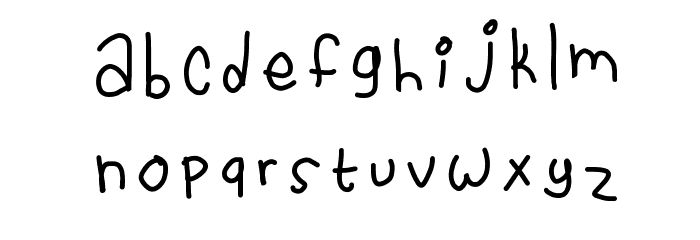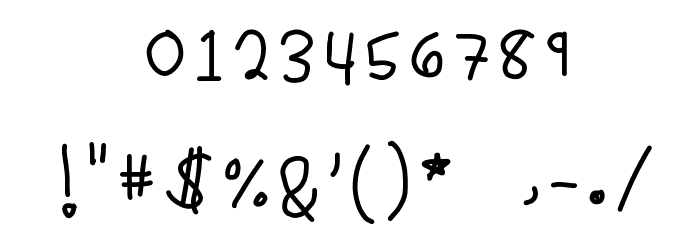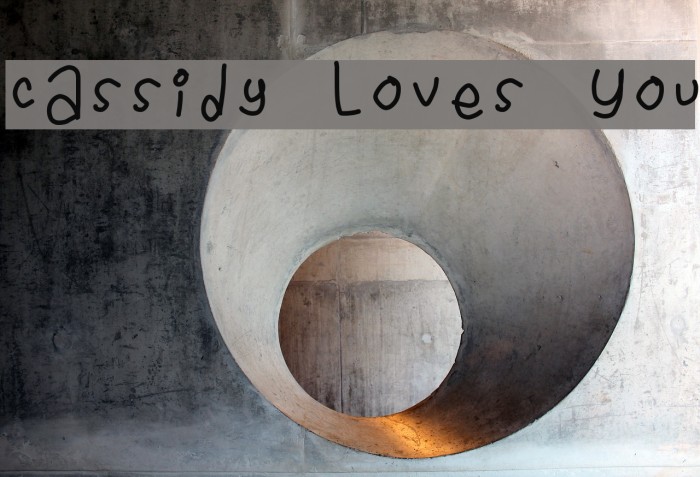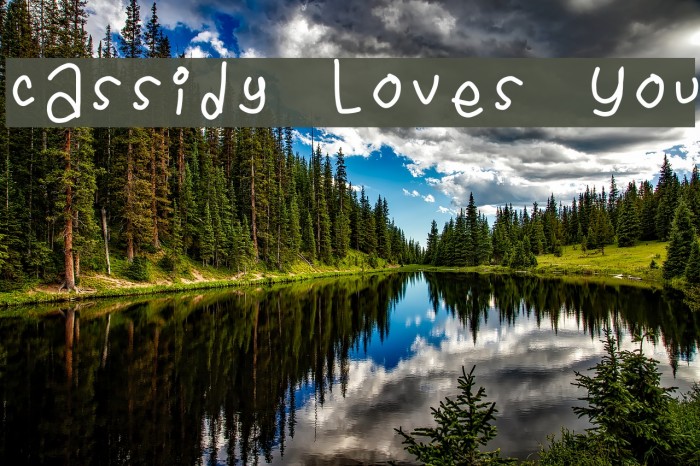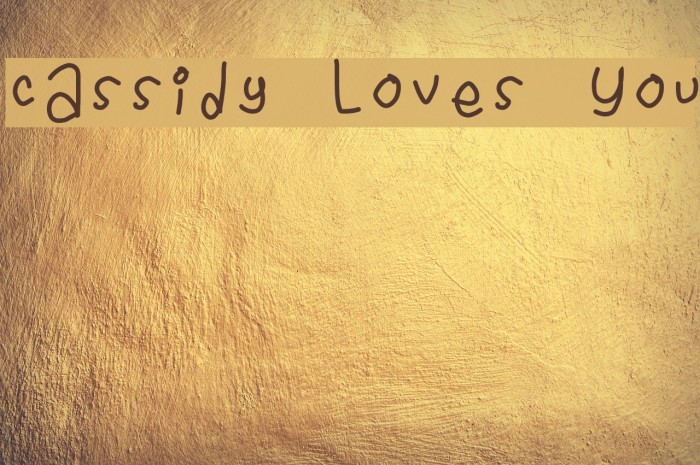
Cassidy Loves You Font
This font features a playful and casual handwritten style, characterized by its uneven strokes and informal appearance. The letters are slightly tilted, giving them a dynamic and lively feel. The uppercase and lowercase letters maintain a consistent style, with rounded edges and a friendly demeanor. The numbers and special characters follow the same playful aesthetic, making the font suitable for projects that require a personal touch. Its informal nature makes it ideal for creative and fun applications.
A playful, casual handwritten font with uneven strokes and a lively feel.
- Proposed Projects: Great for greeting cards, children's books, personal blogs, and informal branding.
- Overall Style: Casual
- Use Case: Headlines, Informal text, Creative projects